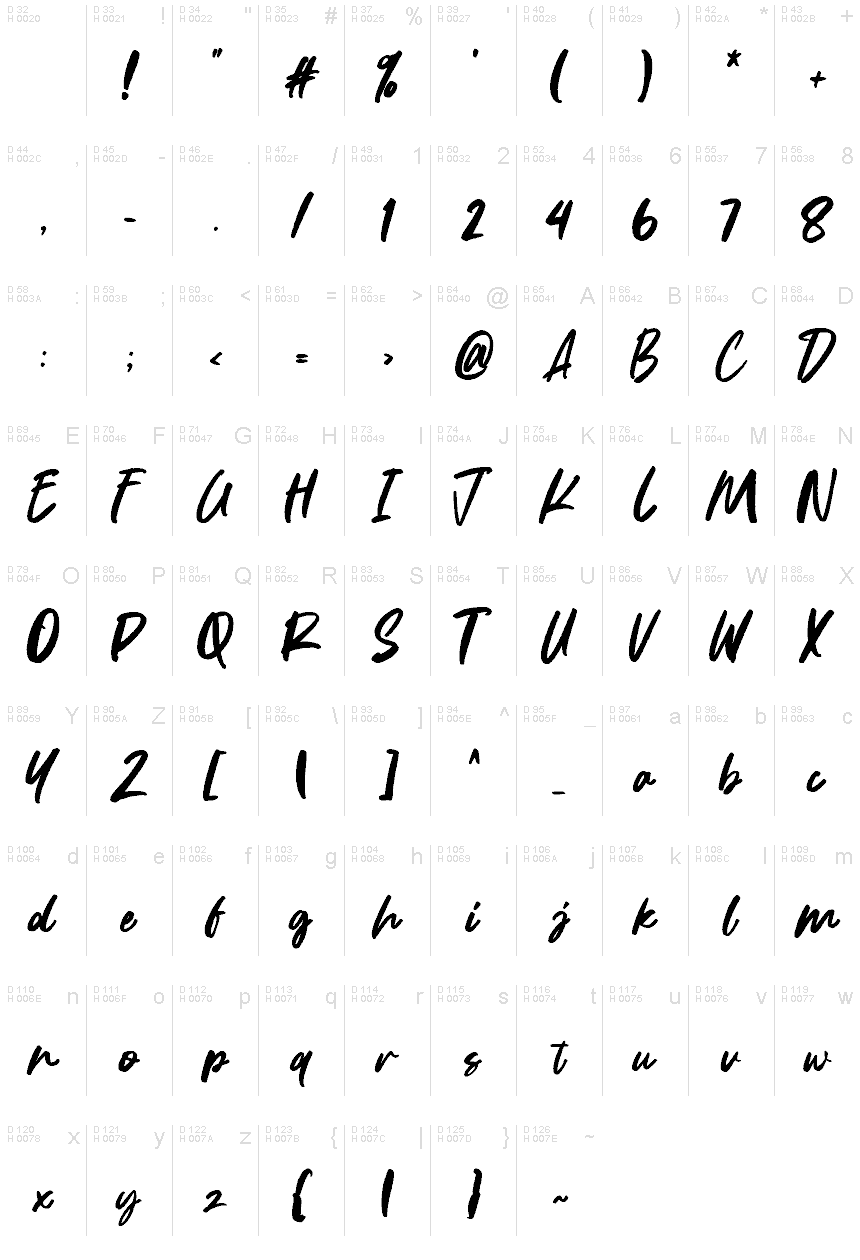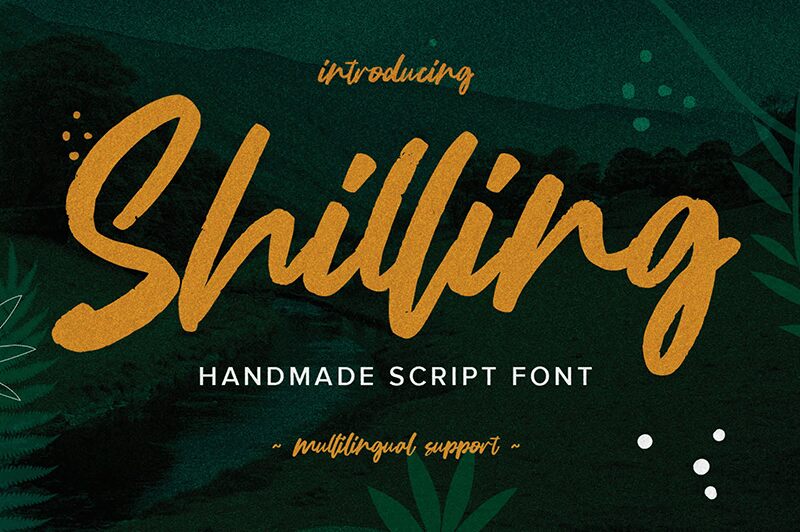
Shilling
Shilling, designed by Gassstype is the perfect brush style font that will bring an authentic hand-lettered look to all types of projects.
It supports uppercase and lowercase letters, multi-lingual characters, numbers and punctuation marks.
It can be used for branding and packaging design, for branding labels, signage, and apparel design, to create eye-catching posters and book cover art, and even for creative quotes and cards.